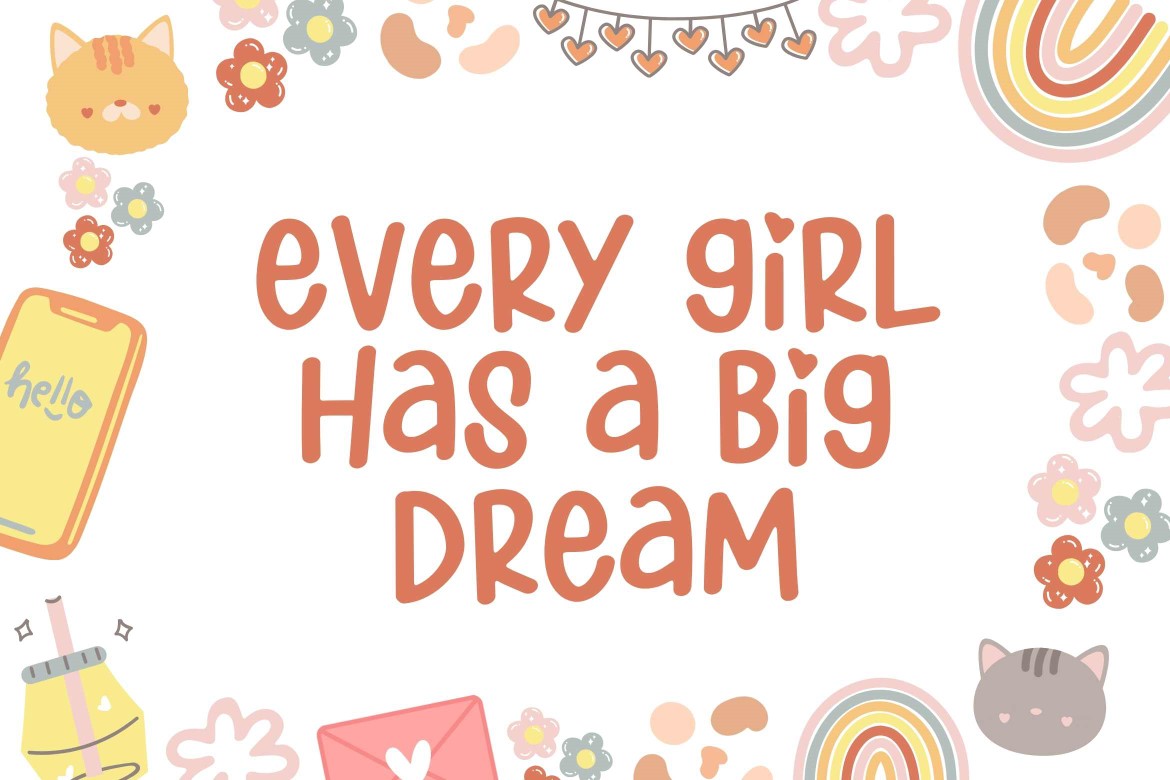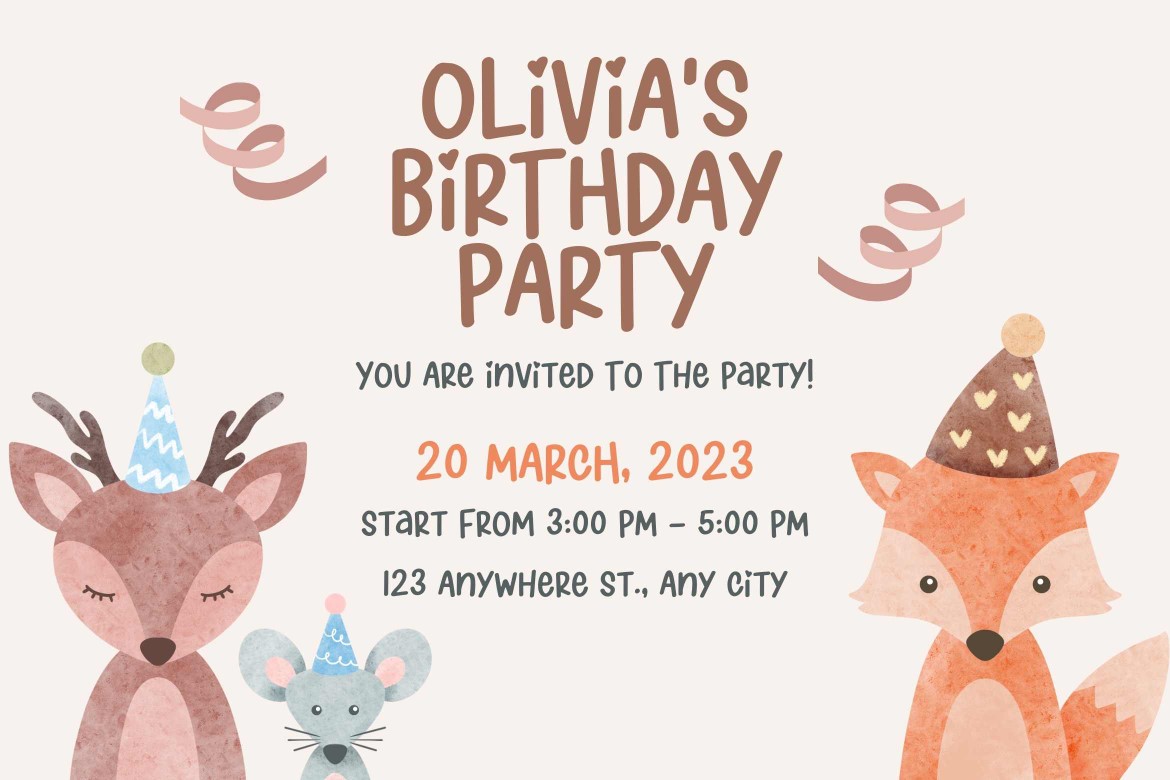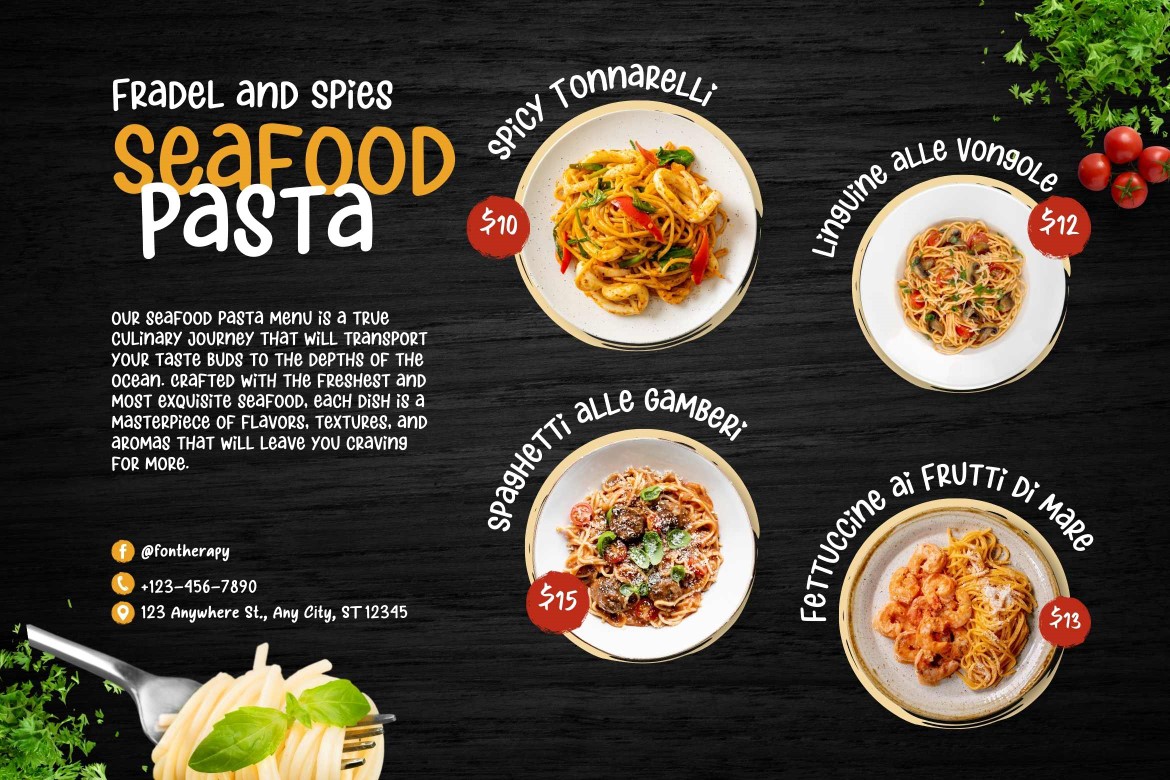
Pinky Girly
Pinky Girly is a delightful and playful handwritten font designed to add a touch of charm and sweetness to your creative projects. Its soft and rounded characters, with whimsical heart details, make it perfect for designs with a fun, feminine, and lighthearted theme.
Key Features:
• Girly Aesthetic: The font exudes a youthful and cheerful vibe, ideal for girly-themed designs.
• Playful Style: Its handwritten look adds a casual and friendly touch to your work.
Perfect For:
• Logos: Create cute and appealing brand identities, especially for businesses targeting kids, teens, or women.
• Menus: Great for café or dessert shop menus with a playful aesthetic.
• School Projects: A fun and engaging choice for projects, presentations, or crafts.
• Valentine Designs: Perfect for Valentine’s Day cards, love notes, or romantic decorations.
• Posters: Use for girly or youth-centric posters to make them pop with charm.
Pinky Girly brings an element of joy and whimsy to any design, making it a versatile choice for creative projects that need a touch of fun and femininity.